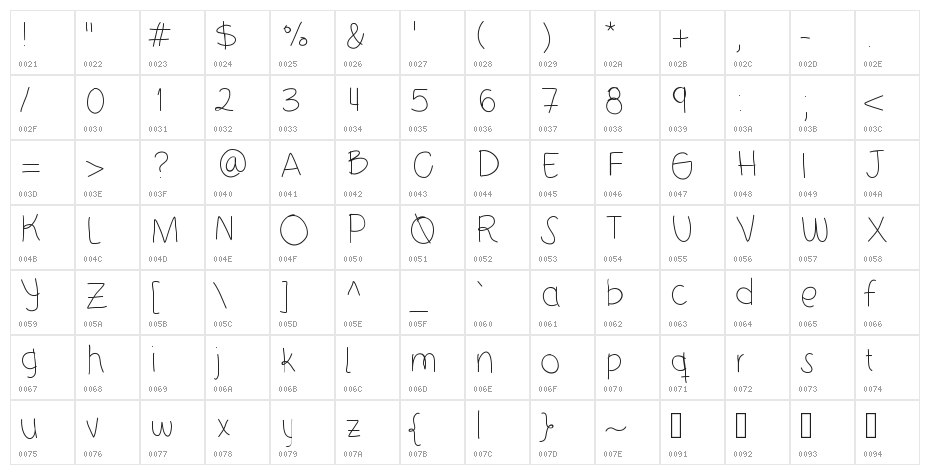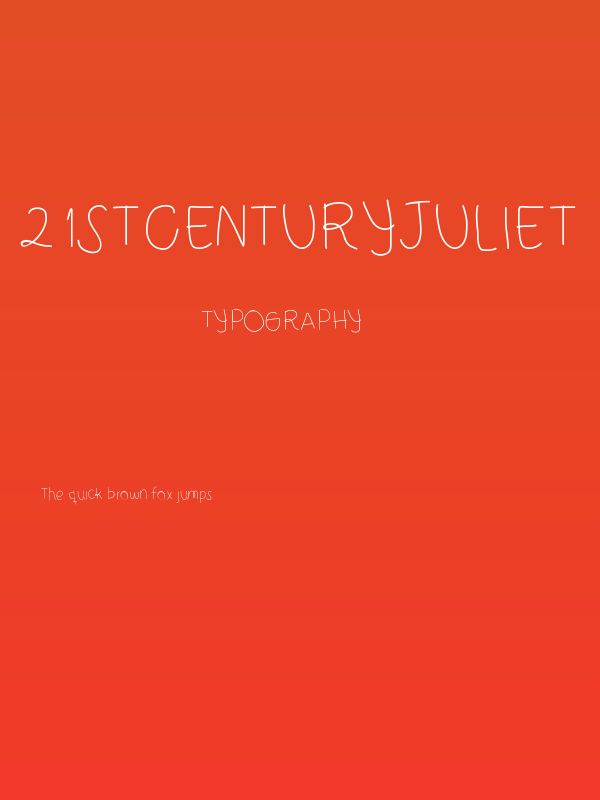
21stCenturyJuliet Font
21stCenturyJuliet Description
This font features a playful and casual handwritten style, characterized by its thin, consistent strokes and slightly irregular letterforms. The uppercase and lowercase letters maintain a whimsical appearance, with rounded edges and a slight tilt that adds to its informal charm. The numerals and special characters follow the same playful aesthetic, making it suitable for projects that require a personal touch. Its simplicity and legibility make it versatile for various design applications.
| Use Case | Headlines, Informal text, Personal projects |
| Proposed Projects | Ideal for greeting cards, children's books, personal blogs, and informal branding projects. |